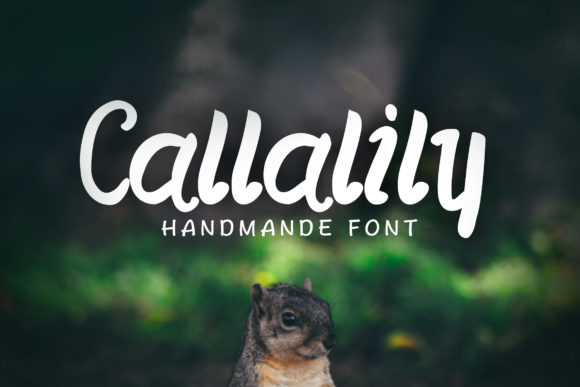
Discover Your New Favorite Font: Callalily Font
Have you ever stared at a blank page, feeling stuck and unsure of where to begin? That’s where inspiration strikes – in the unlikeliest of places. For me, it was during a lazy Sunday morning, sipping coffee and flipping through design blogs. And then, I saw it: a beautiful, handwritten font that caught my eye and sparked a creative spark.
That font was the Callalily Font, a sweet and flowing handwritten font that’s perfect for a wide variety of designs. Whether you’re a seasoned designer or just starting out, Callalily Font is a valuable addition to your toolkit. Its neat and simple style makes it suitable for everything from invitations to social media graphics, and its friendly vibe is sure to put a smile on your face.
Callalily Font Key Features
- Font Style: Script, Casual
- Unique Characteristics: Hand-drawn and hand-painted design elements, creating a unique and personalized look
Callalily Font Review
When I first laid eyes on the Callalily Font, I was immediately struck by its beauty ✨. The font’s elegant, cursive design makes it perfect for adding a touch of whimsy to any project. The flowing lines and subtle flair of the letters evoke a sense of romance and sophistication, making it a great choice for wedding invitations, greeting cards, or other special occasions.
One of the things I appreciate about the Callalily Font is its versatility ✨. It comes in a range of weights and styles, from light to bold, and can be used for both digital and print projects. The font is also highly customizable, allowing designers to adjust the spacing, kerning, and other features to suit their specific needs.
However, I do have a few concerns about the Callalily Font ⚠️. One of the main limitations is its readability at smaller font sizes. While the font looks beautiful at larger sizes, it can become difficult to read when scaled down. Additionally, the font may not be the best choice for projects that require a more formal or corporate tone, as its cursive design can come across as too playful.
- Elegant, cursive design
- Versatile and highly customizable
- Range of weights and styles available
- Suitable for digital and print projects
Overall, I think the Callalily Font is a beautiful and versatile choice for designers ✨. While it may have some limitations, its unique design and customization options make it a great addition to any font collection.
For a more authentic look, use the Callalily Font in combination with pastel colors and floral patterns.
For a more elegant look, use the Callalily Font in combination with watercolor textures and subtle gradients.
For a more whimsical look, use the Callalily Font in combination with hand-drawn illustrations and playful colors.
The Callalily Font is ideal for creating feminine and elegant designs, such as:
Floral-themed graphics and illustrations
Women’s lifestyle and fashion magazines
Alternatives to Callalily Font
The Great Vibes Font is a beautiful, elegant script font perfect for creating a sophisticated and refined look. It is ideal for use in wedding invitations, luxury branding, and other high-end designs.
Compared to Callalily Font, Great Vibes Font has a more classic and timeless feel, while Callalily Font has a more modern and whimsical touch.
Carolyna Pro Font is a modern script font that exudes a sense of sophistication and elegance. It is perfect for use in fashion branding, luxury packaging, and other high-end designs that require a touch of glamour.
Carolyna Pro Font has a more polished and refined feel compared to Callalily Font, which has a more playful and free-spirited vibe.